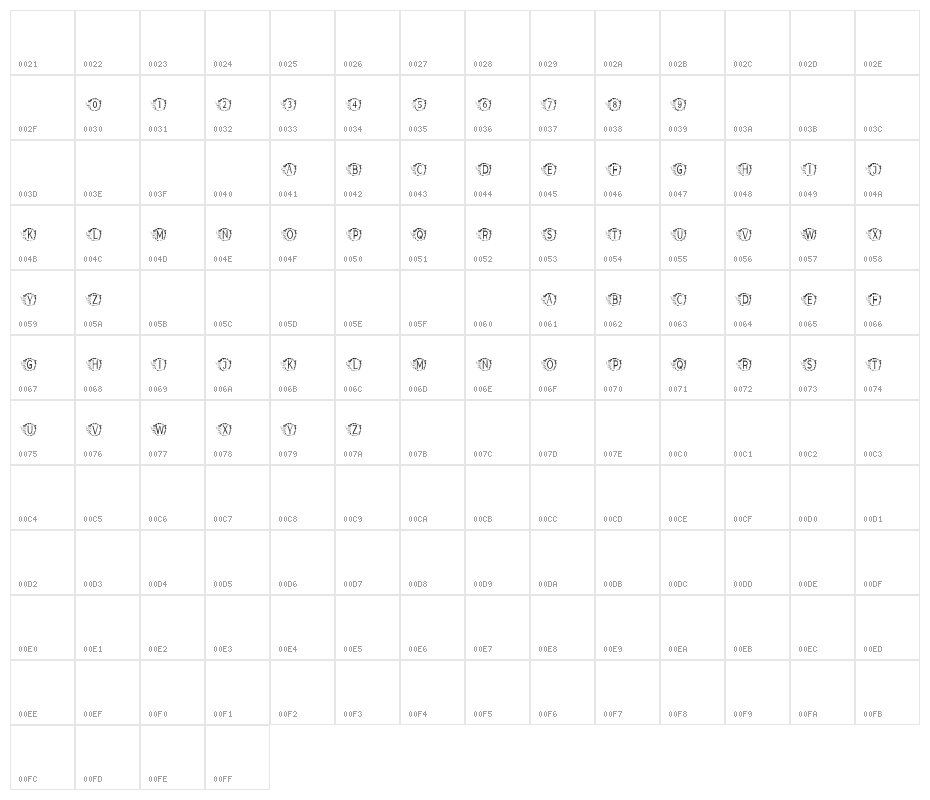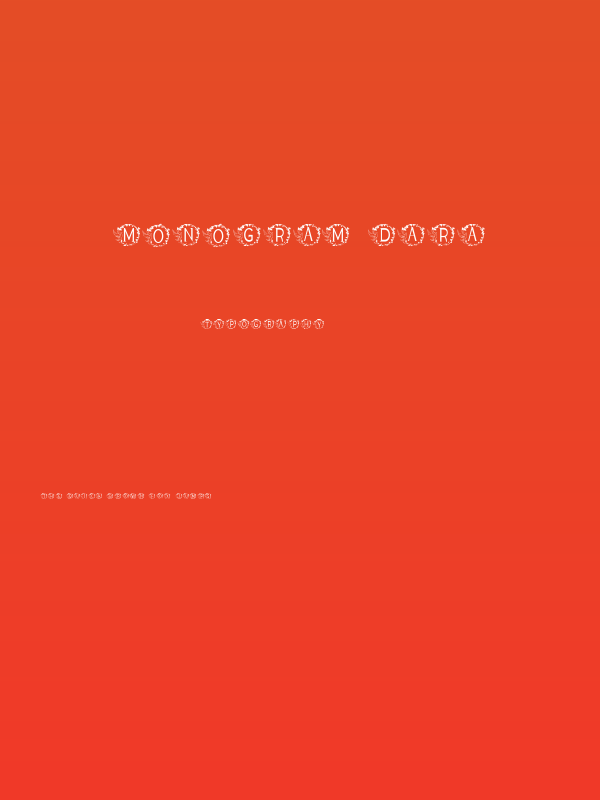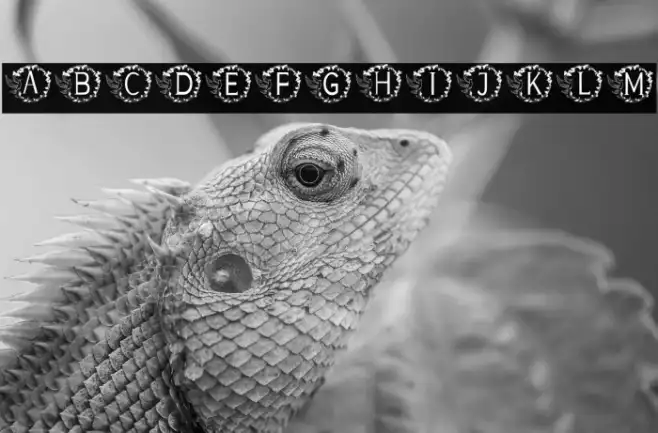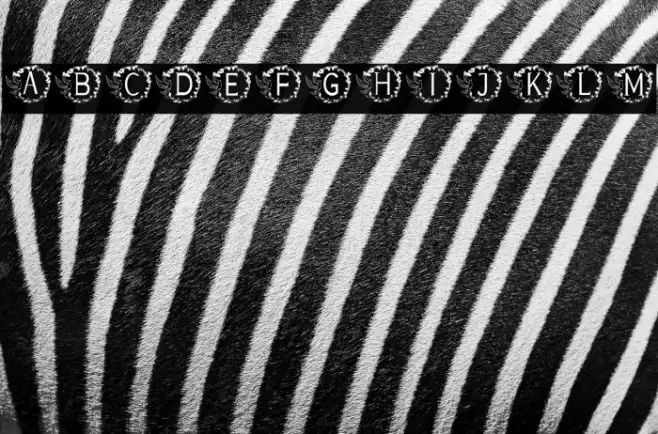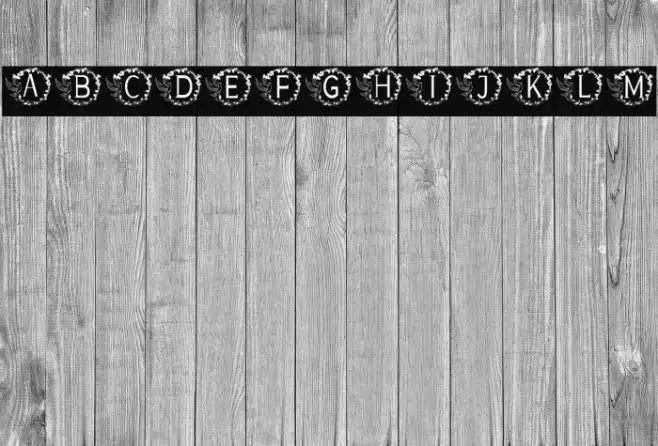
MONOGRAM DARA Font
MONOGRAM DARA Description
This font features a decorative style with each character enclosed in a circular emblem adorned with intricate leaf patterns. The letters and numbers are bold and prominently centered within the circle, providing a striking contrast against the ornate border. The design is reminiscent of classic monograms, offering a sense of elegance and sophistication. The characters are evenly spaced, ensuring readability while maintaining the decorative appeal. This font is ideal for projects that require a touch of class and distinction.
| Use Case | Logos, Headlines, Invitations |
| Proposed Projects | Ideal for wedding invitations, luxury branding, personalized stationery, and decorative monograms. |